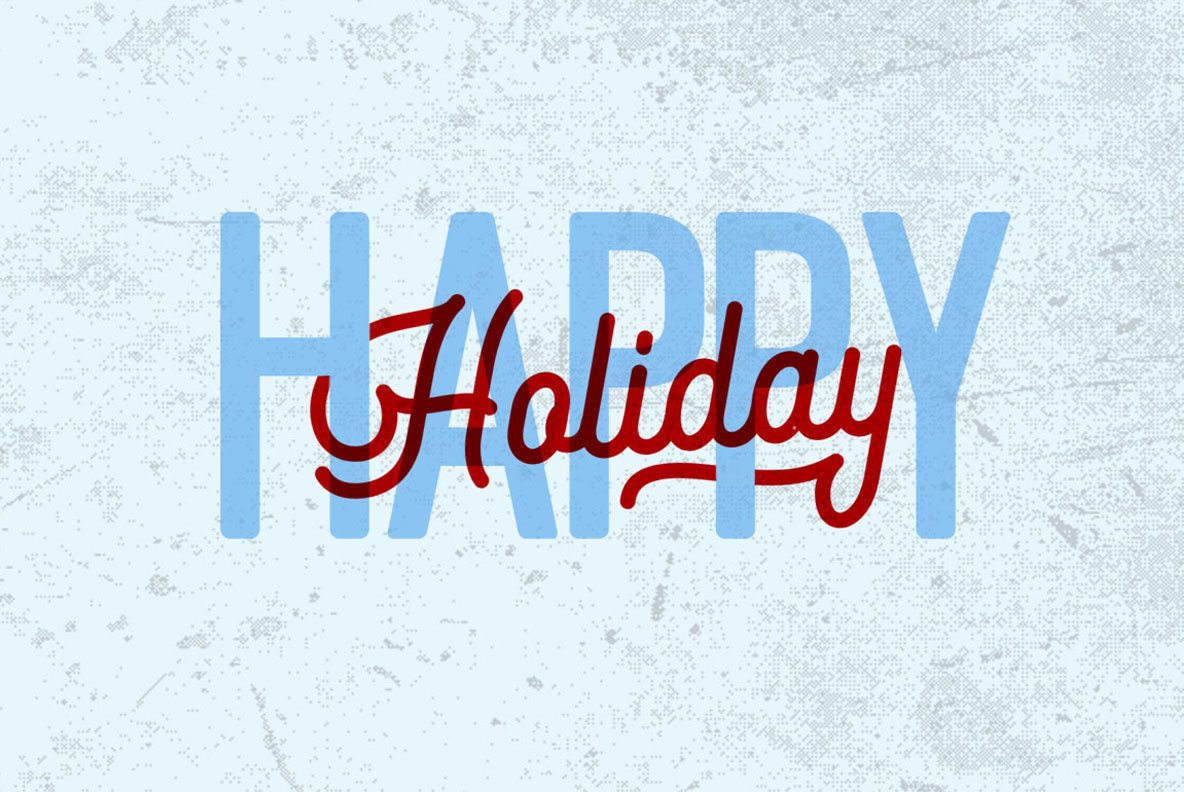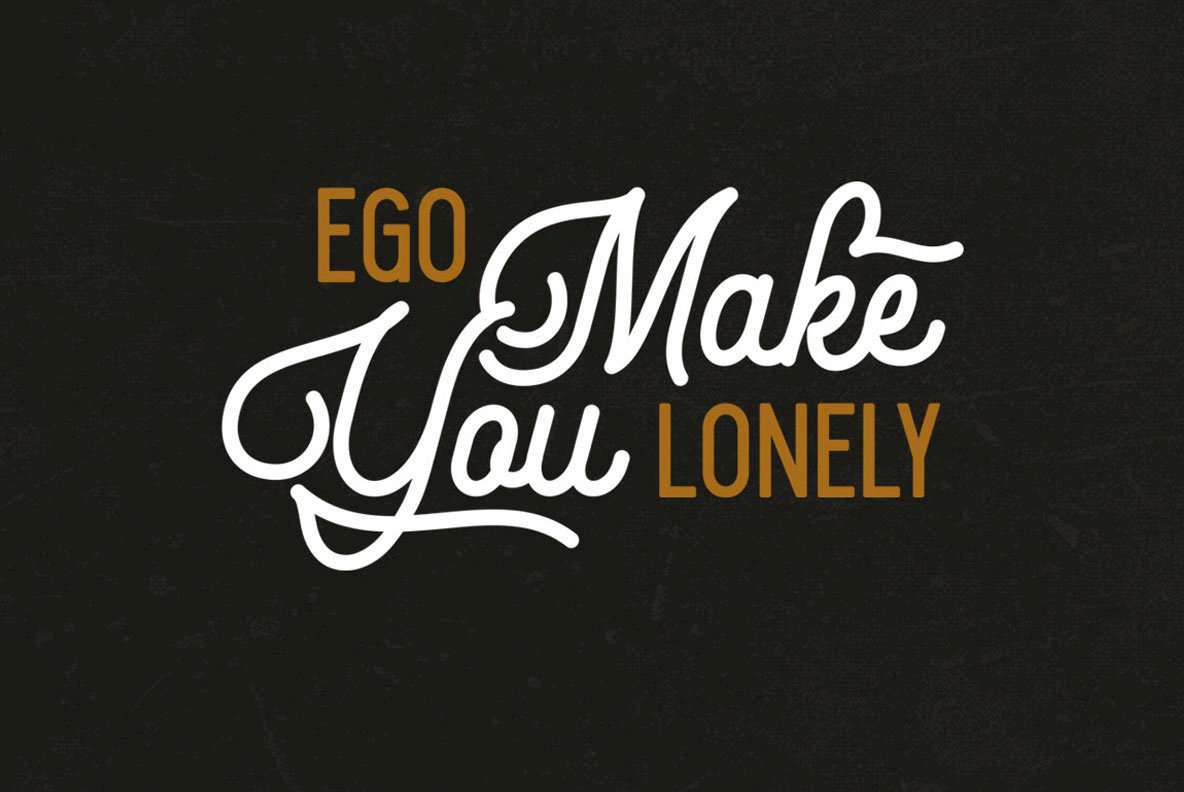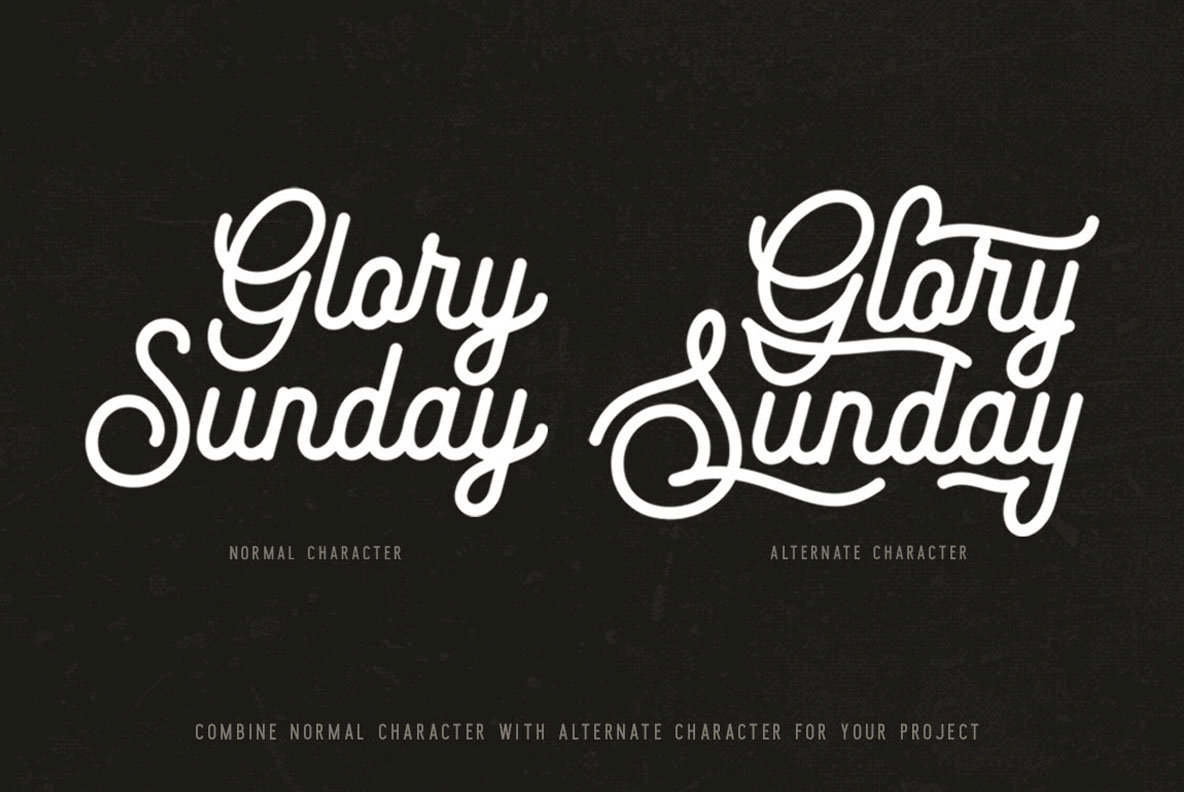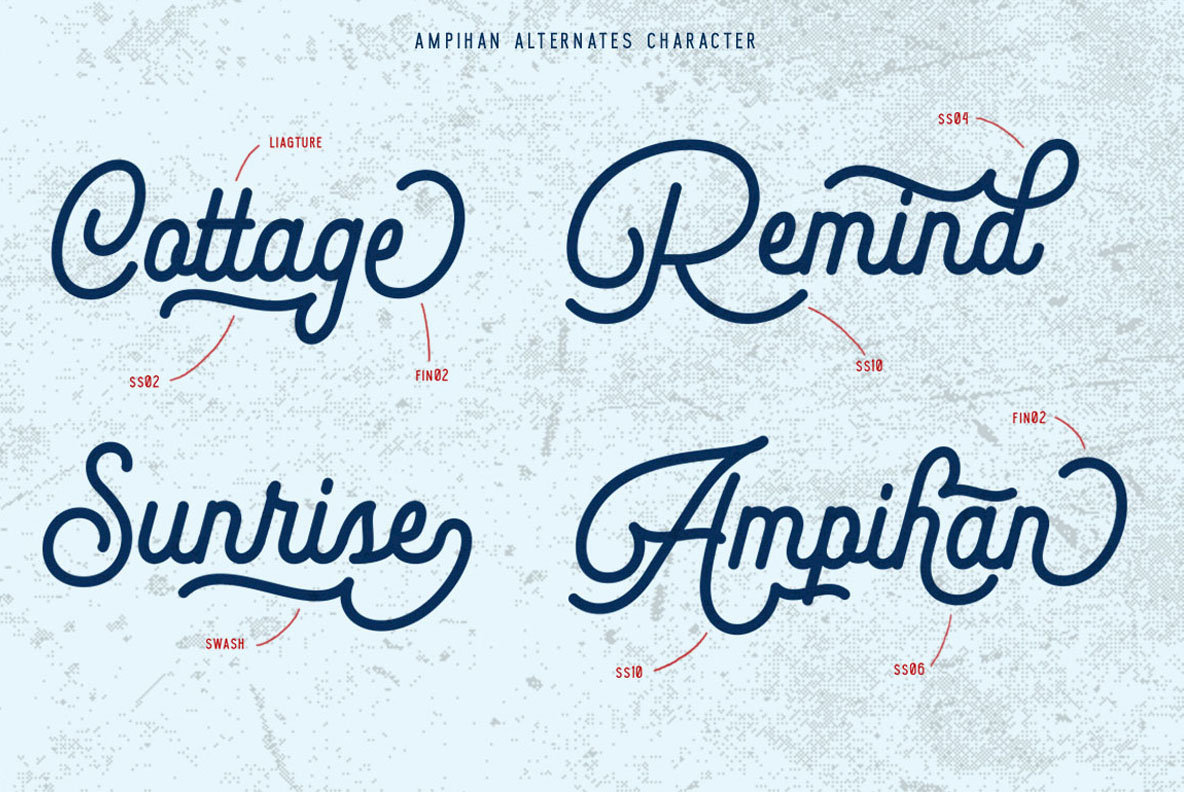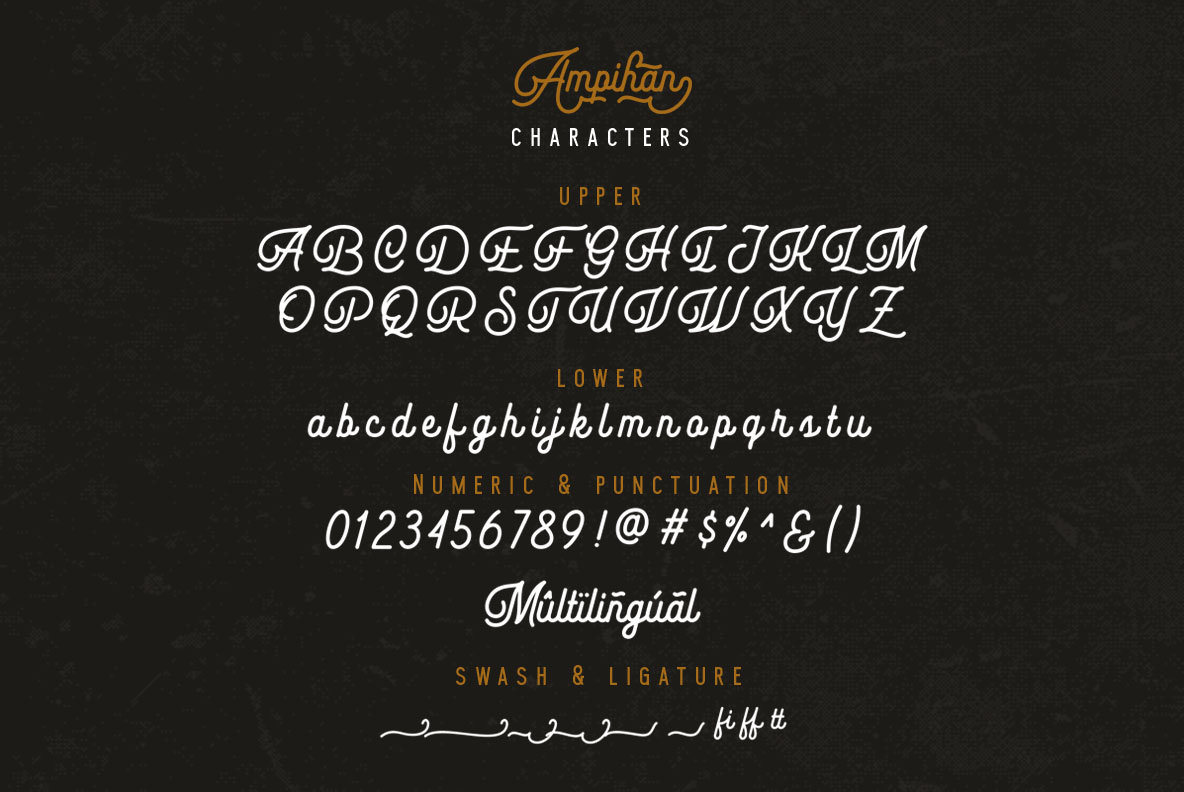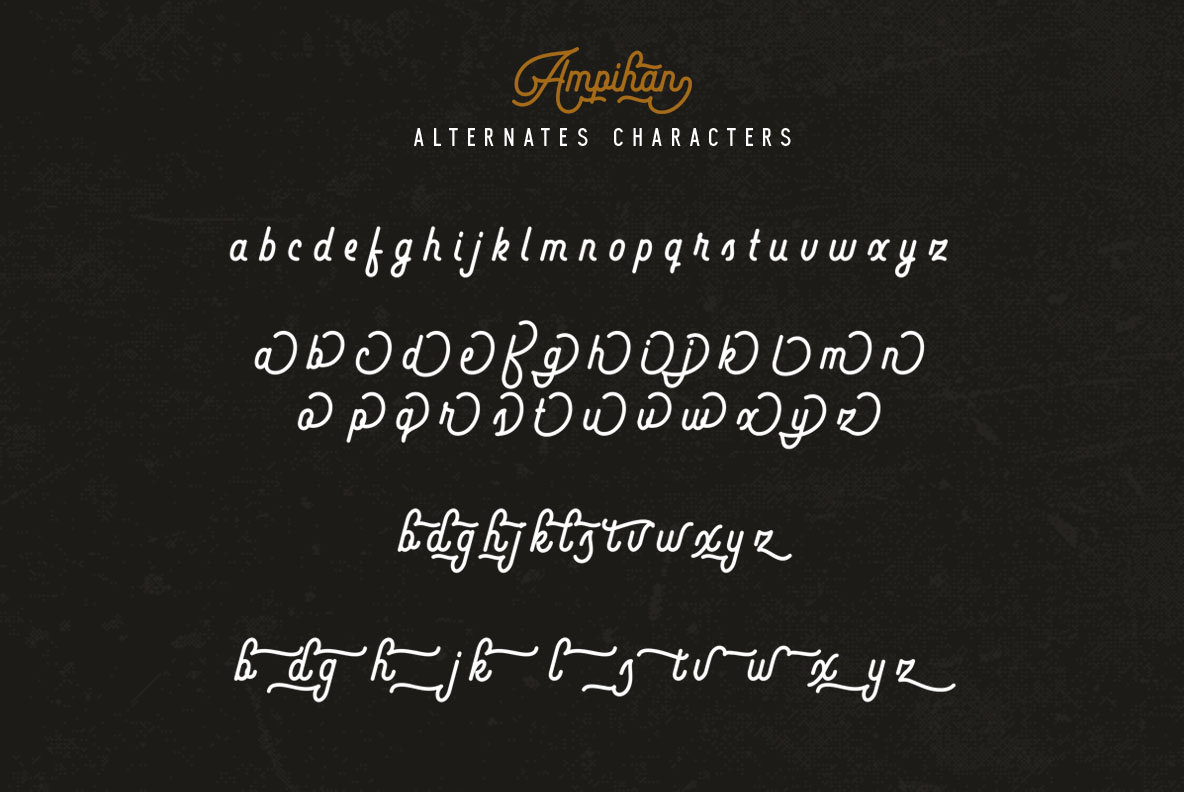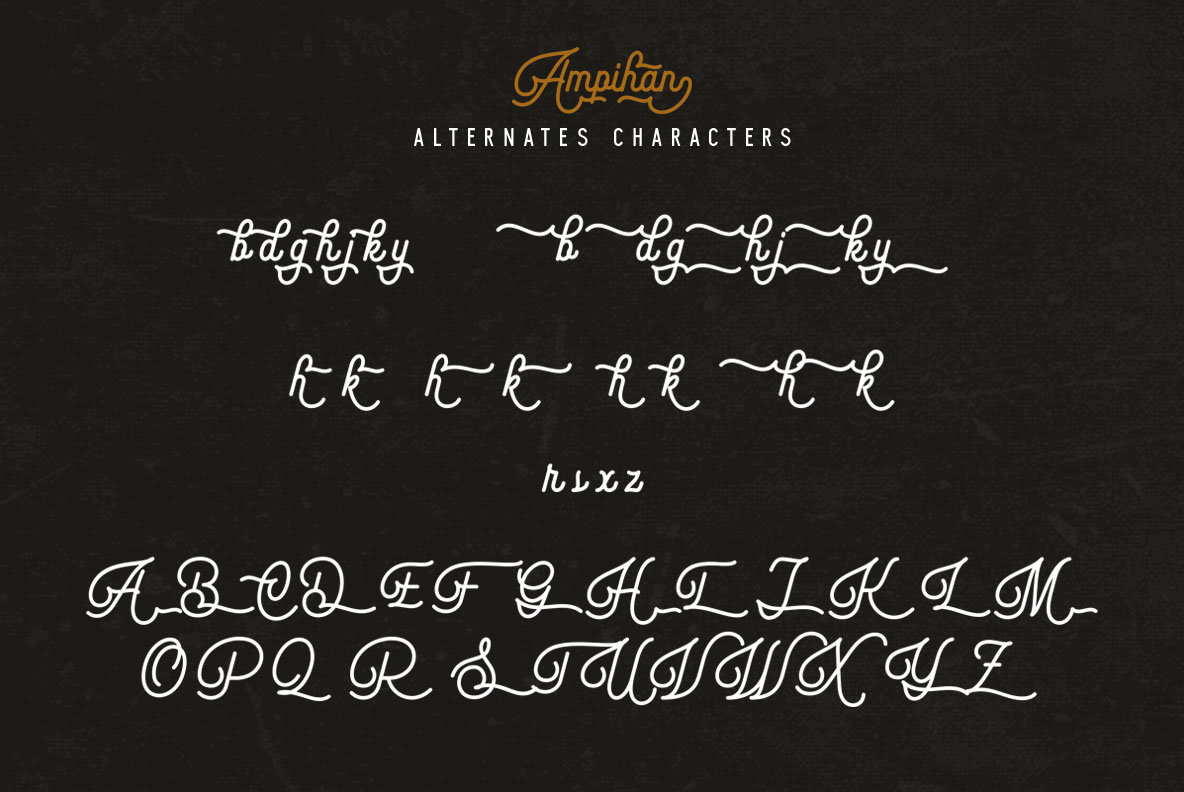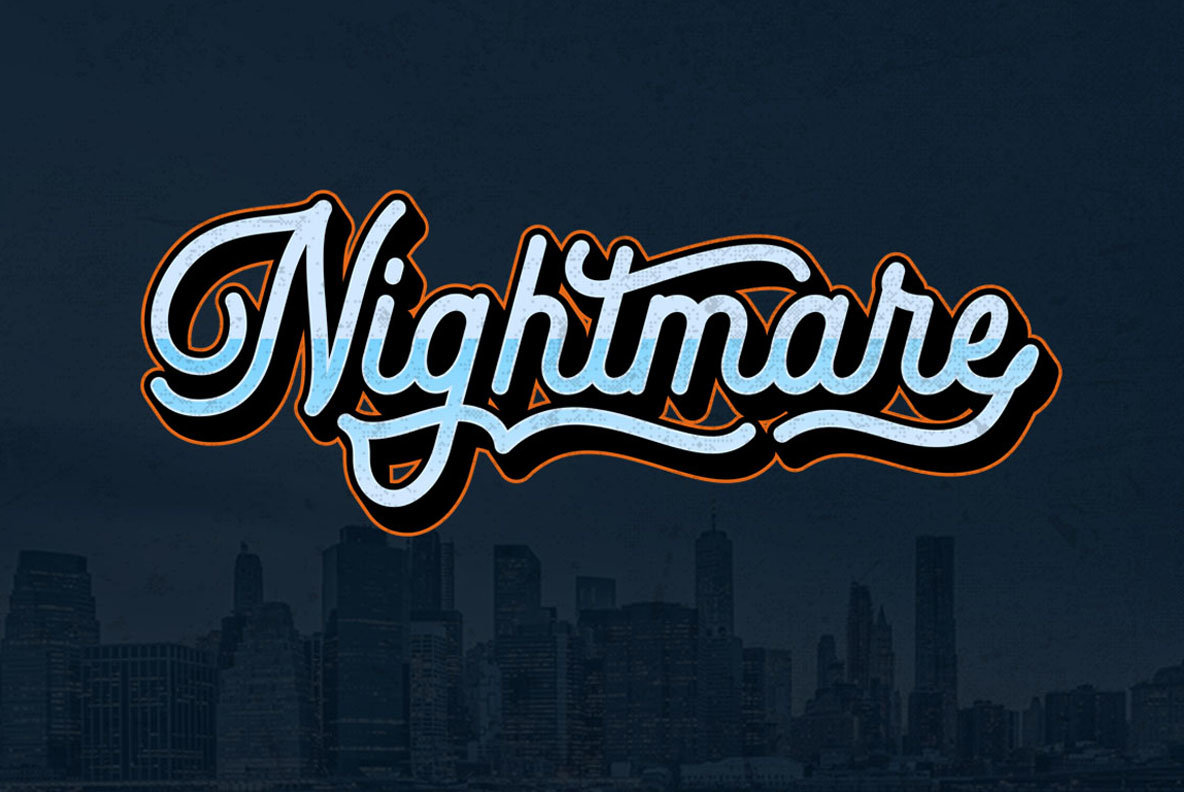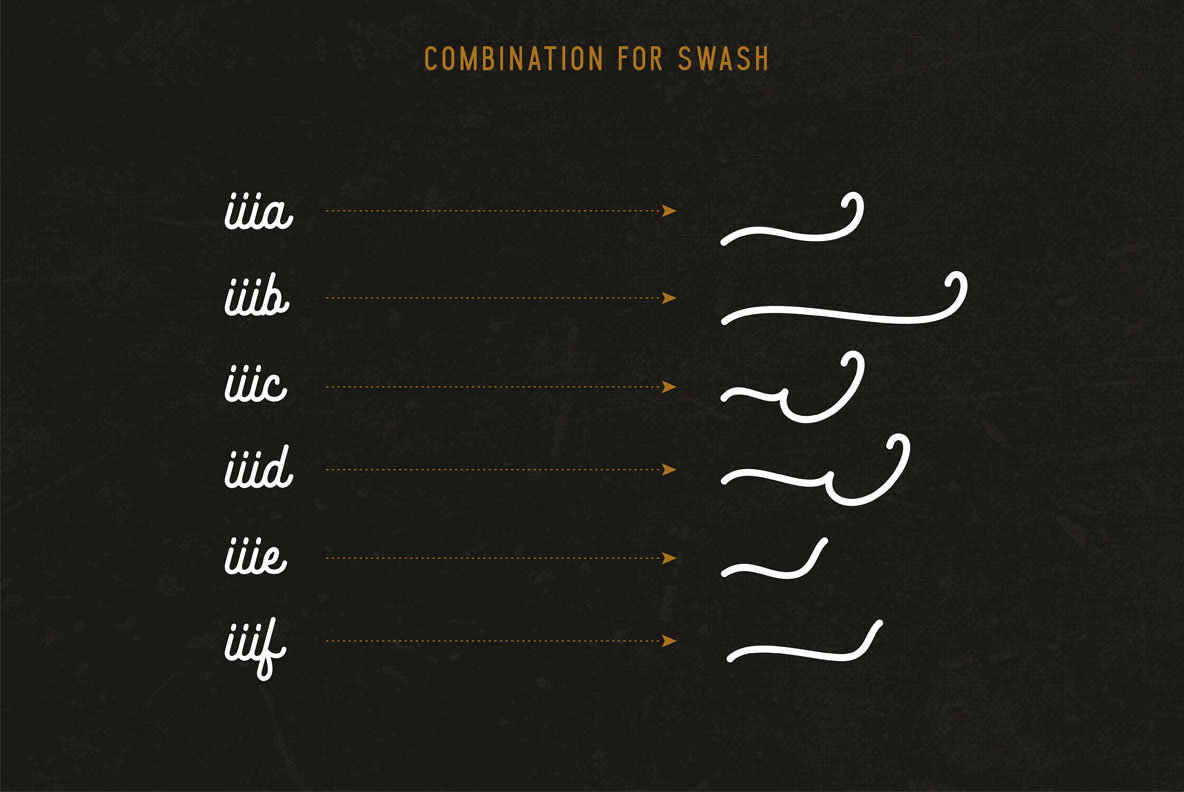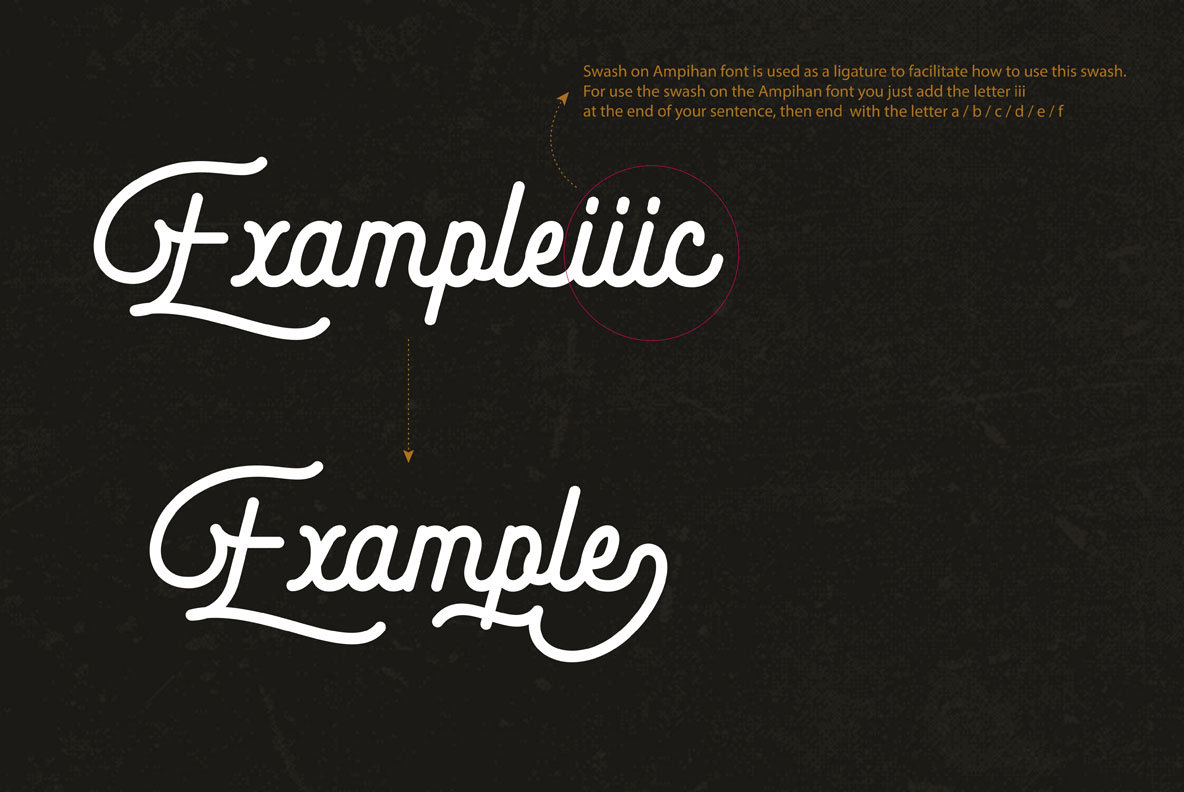
Ampihan Font
Ampihan, a fresh addition from Secondivison Supply, presents a monoline script font that's both stylish and adaptable. Ideal for a range of design tasks, this font can enhance logo creation, poster art, t-shirt patterns, branding initiatives, badges, and business cards. Ampihan offers numerous alternate characters to enrich your creative repertoire. The sales package includes the bonus Blackwood font, perfect for pairing with Ampihan to bring a cohesive aesthetic to your projects. Ampihan's opentype features are best accessed through applications like Adobe Illustrator CS, Adobe Photoshop CC, Adobe InDesign, and Corel Draw x6 or later.Ampihan: Versatile Monoline Script for Creative Projects